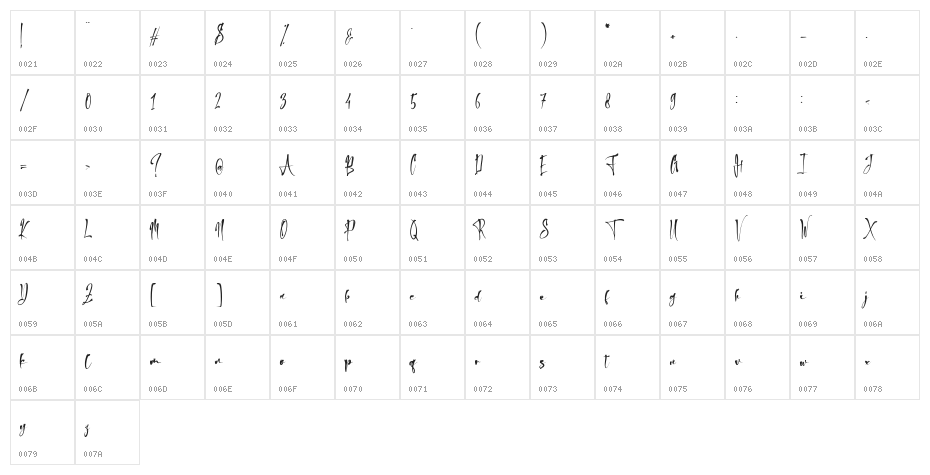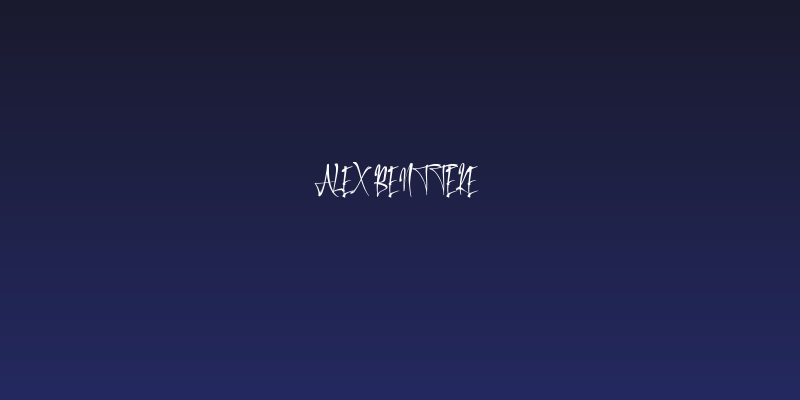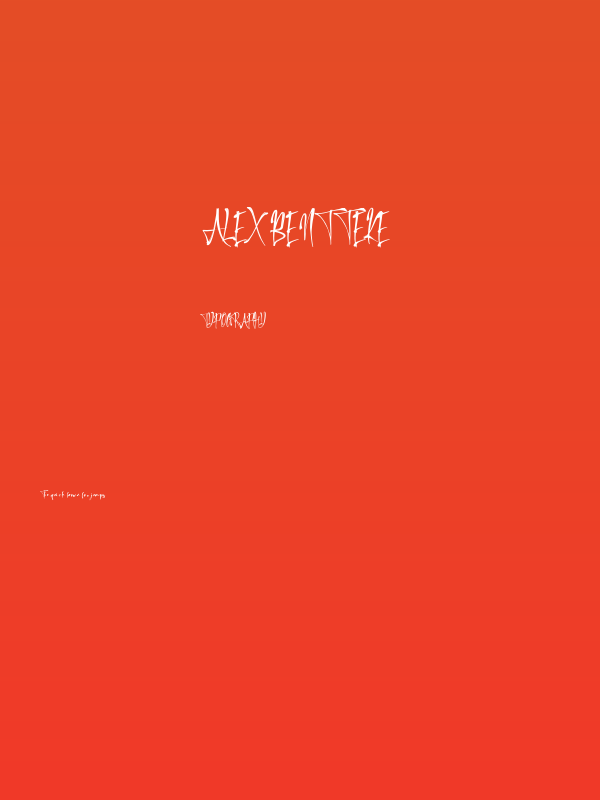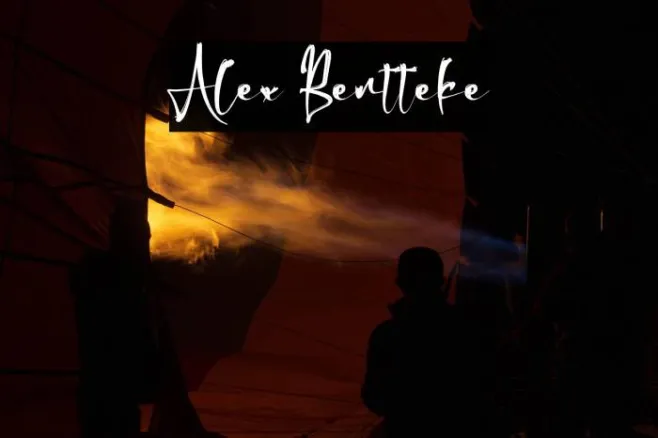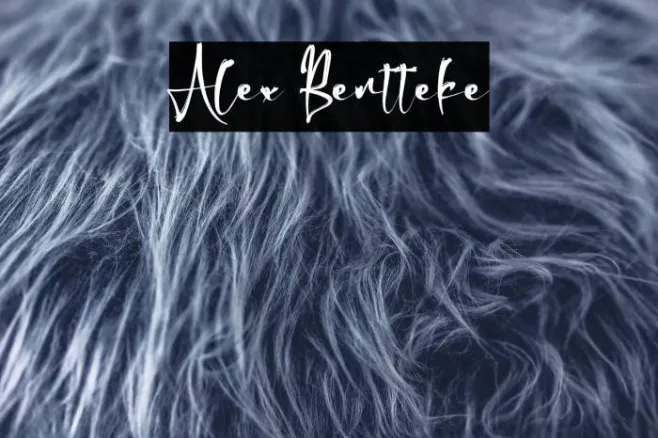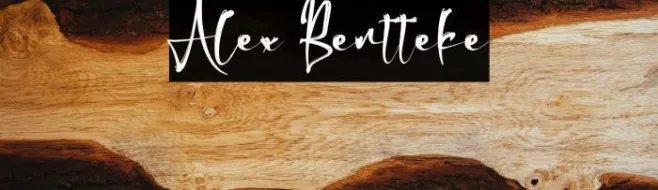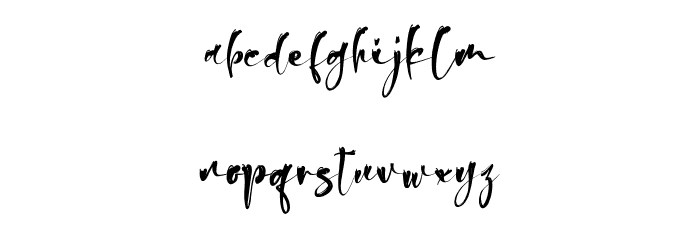
Alex Bentteke Font
Alex Bentteke Description
This font features an expressive and artistic style, characterized by its fluid and dynamic strokes. The letters are crafted with a calligraphic flair, showcasing a blend of thick and thin lines that create a sense of movement and elegance. The uppercase letters are bold and prominent, while the lowercase letters maintain a graceful and flowing appearance. The numerals and special characters are designed with the same artistic touch, making them visually cohesive with the alphabet. This font's unique style makes it suitable for creative and decorative purposes.
| Proposed Projects | Ideal for wedding invitations, greeting cards, logos, and artistic posters. |